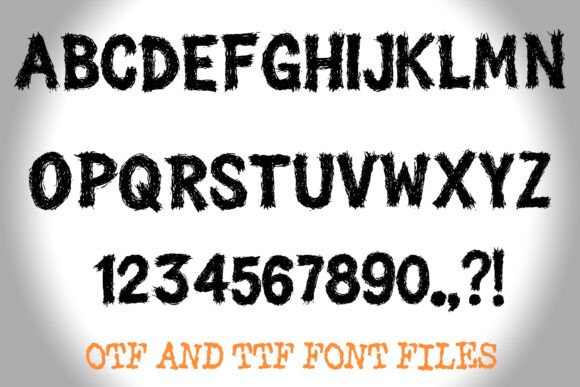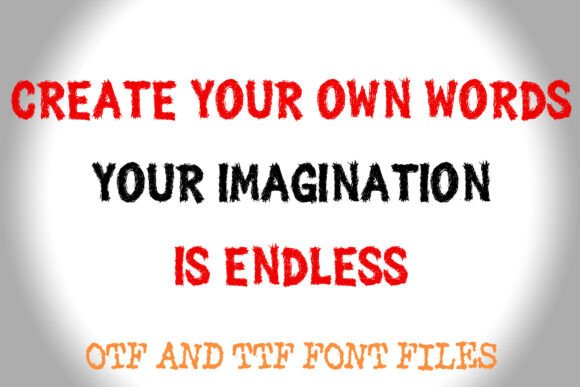
Introduction to Scratchy Sketch Font
Scratchy Sketch Font is a bold, hand-drawn display typeface with a rough, textured appearance that mimics the look of scratchy sketch lines.
Each character features an organic, uneven stroke pattern, making it ideal for projects that call for a raw, edgy, or expressive aesthetic Perfect for posters, horror themes, Halloween designs, or grunge artwork.
Key Features of Scratchy Sketch Font
Why Choose Scratchy Sketch Font?